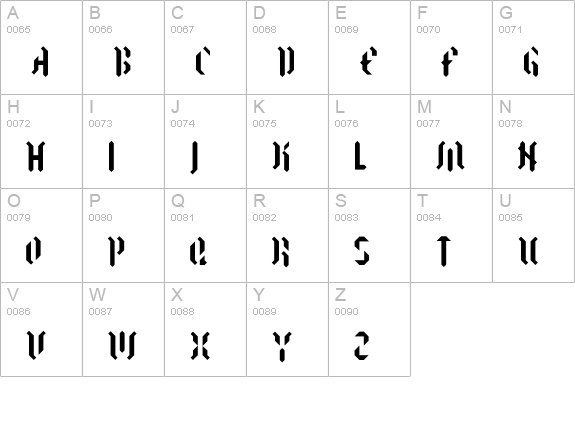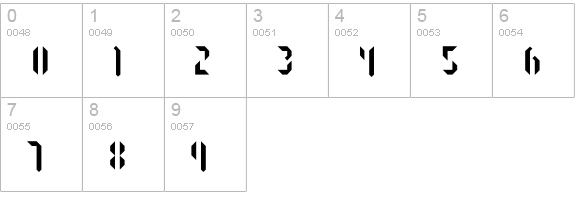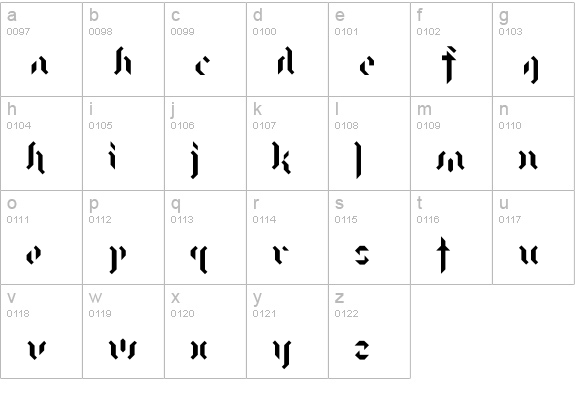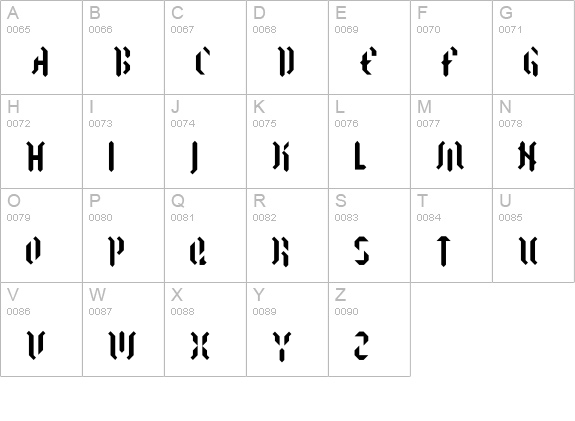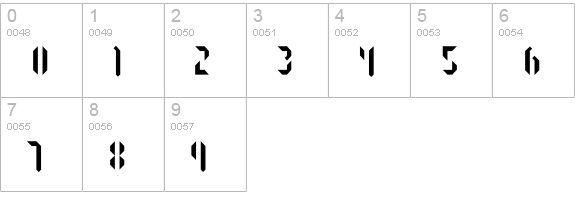
BerlinerGothic Font Details
BerlinerGothic font is a stunning display typeface that exudes a sense of dark elegance and gothic flair. With its sharp serifs and intricate details, this font is perfect for creating striking headlines, posters, and branding materials that demand attention. The unique design of BerlinerGothic font captures the essence of urban sophistication and mystery, making it a versatile choice for a wide range of design projects. The best part? BerlinerGothic font is completely free to download at FontsMarket.com. Whether you're a professional designer looking to add a touch of drama to your work or a hobbyist seeking a unique typeface for personal projects, BerlinerGothic font offers endless possibilities. Embrace the dark beauty of BerlinerGothic font and elevate your designs to new heights with this captivating and free typeface.